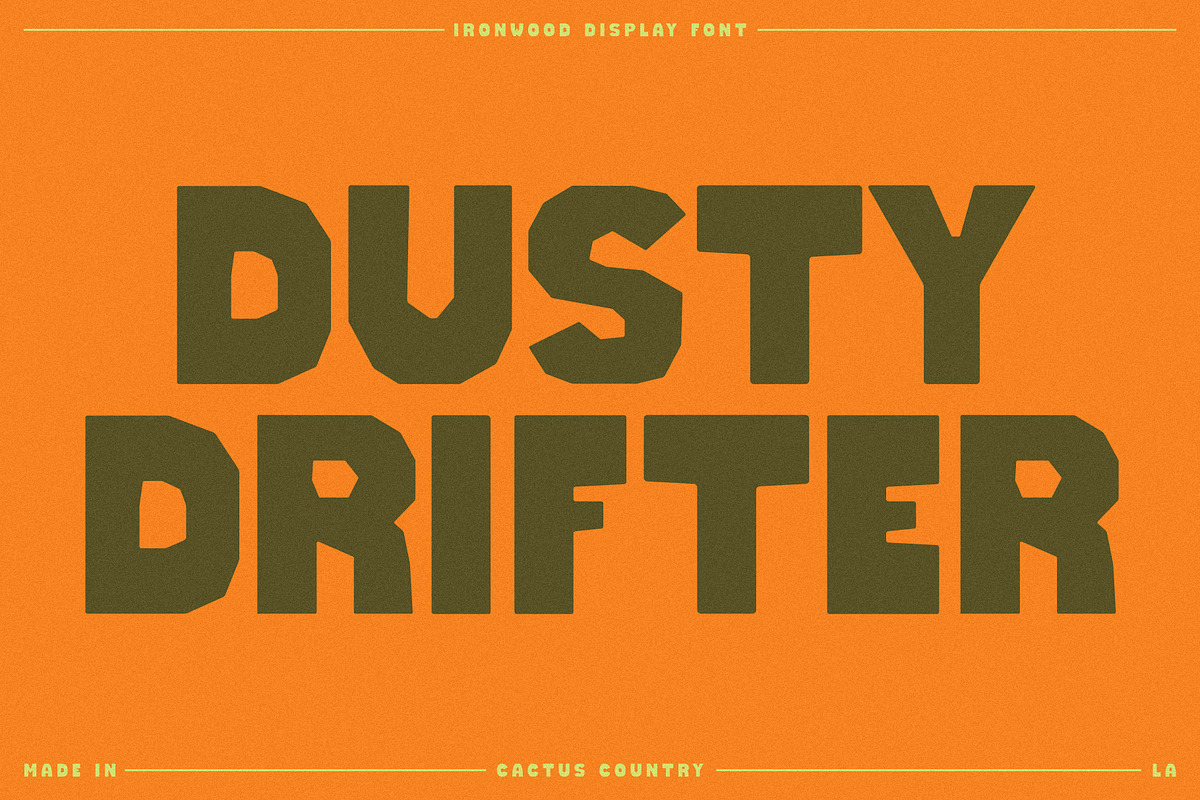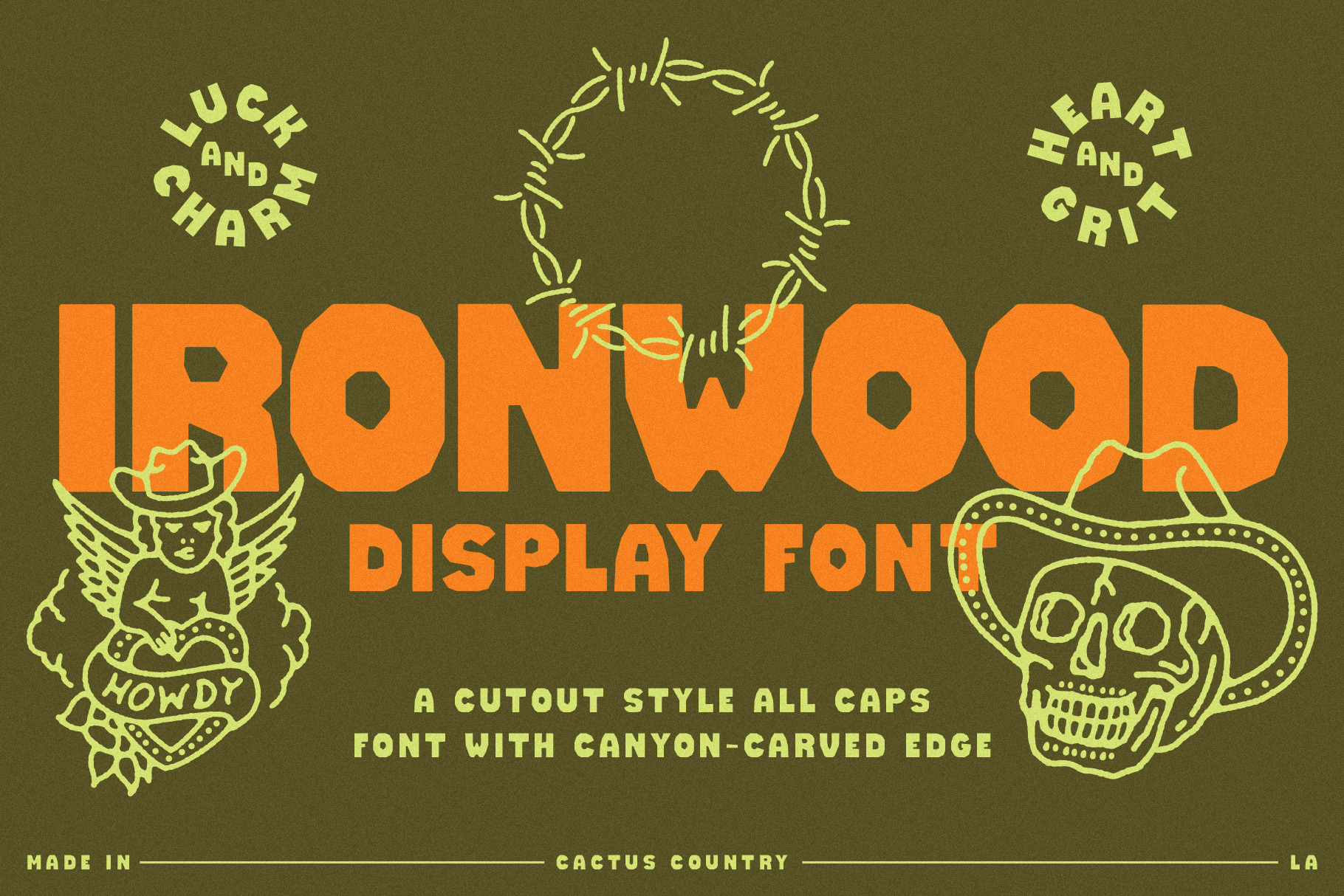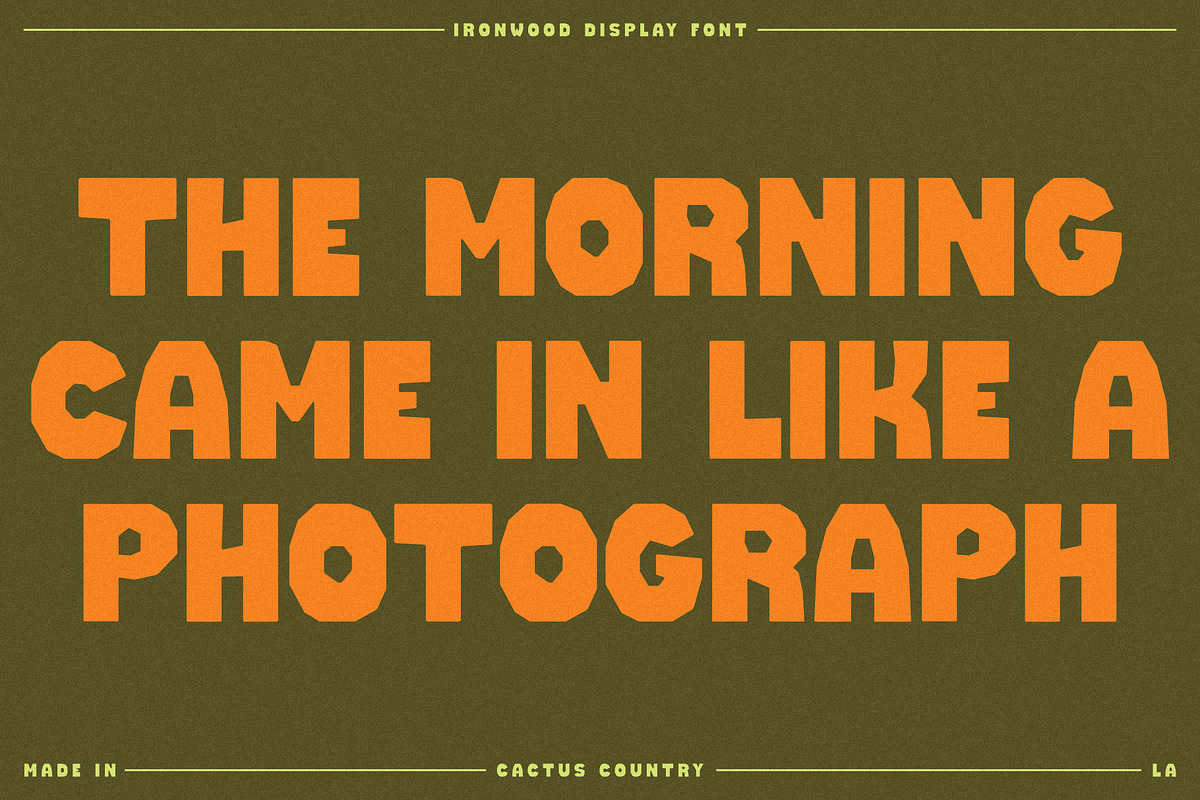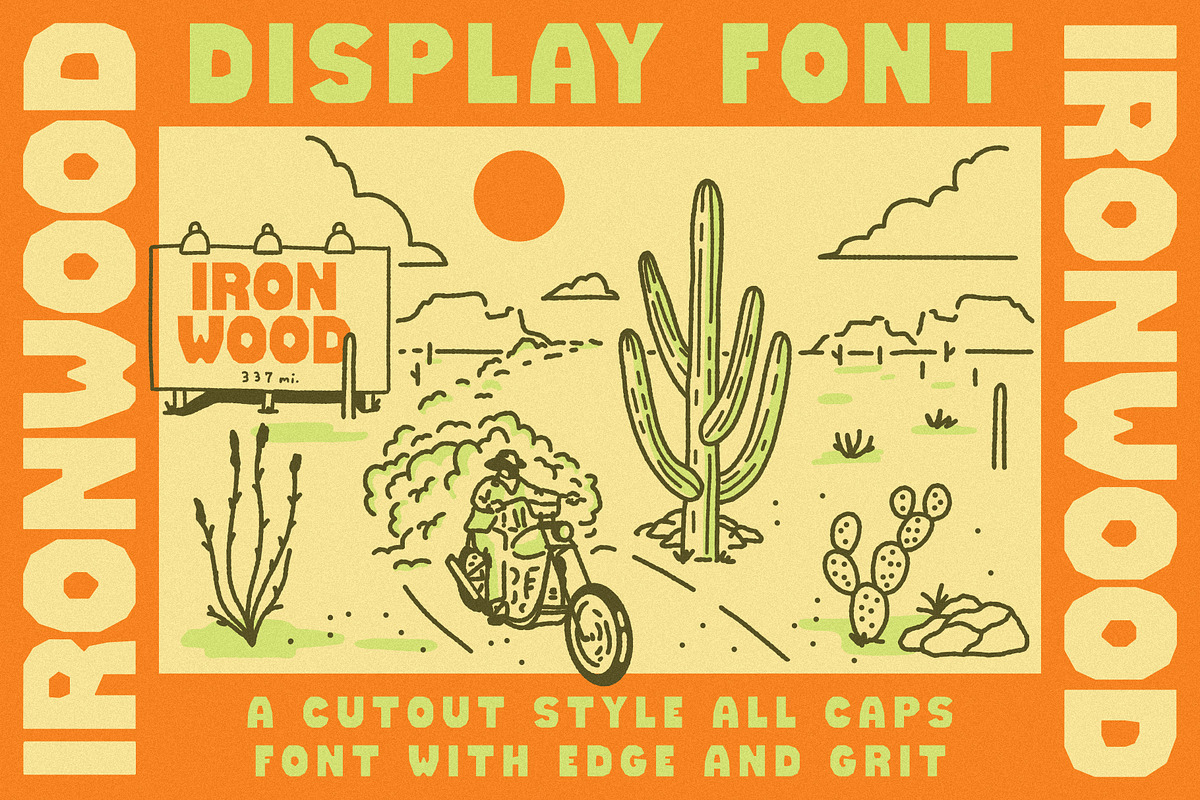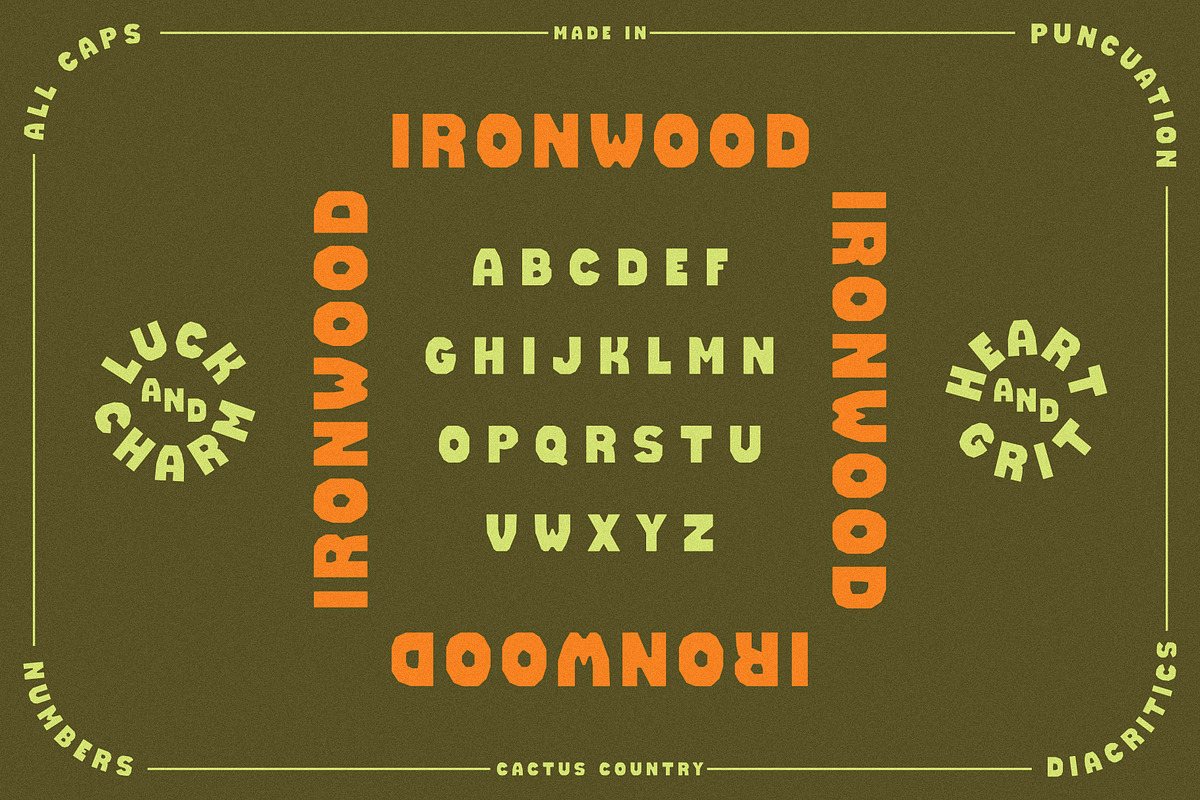
Ironwood Display Font
Ironwood is a hard-working, all-caps western display font built with edge and grit. Carved like the canyons, cutout in style, and branded straight off the frontier, this one's bold as the west and tall as the legends.
Great for branding, packaging design, merch collection and hand drawn illustration needs.